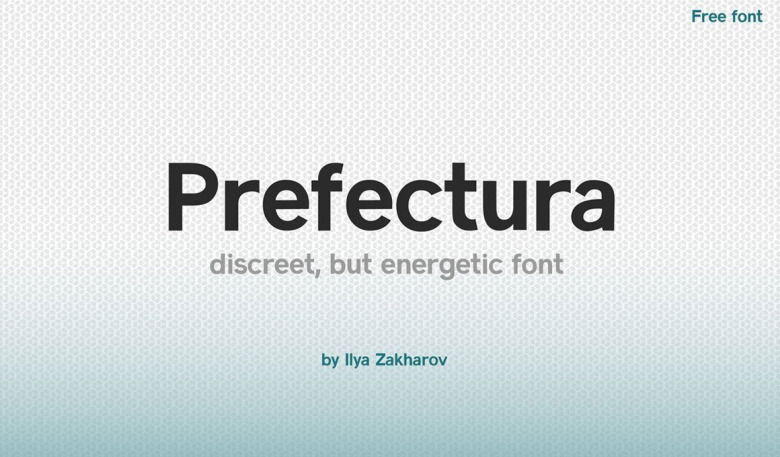
Prefectura Font Free
Prefectura Basic Sans Font is a distinctive modern sans serif font. It offers rich solutions to your creative projects with its alternative versions. You can create your text with normal characters and highlight bold characters and titles. With its rich Open Type features, multi-language support and small capital characters, it has a wider usage area than its counterparts.
Ideal for packaging, labels, routing designs, mobile applications, brand designs, logos, all kinds of presentation and editorial designs, indoor and outdoor printing works. This font is free for PERSONAL AND COMMERCIAL USE.